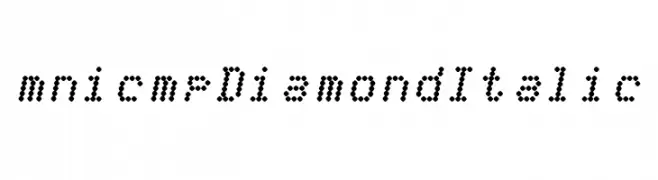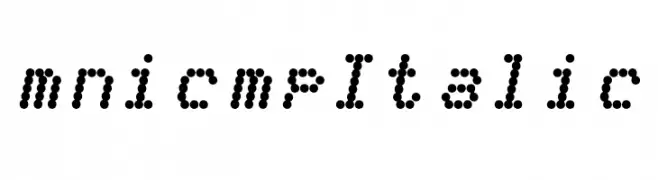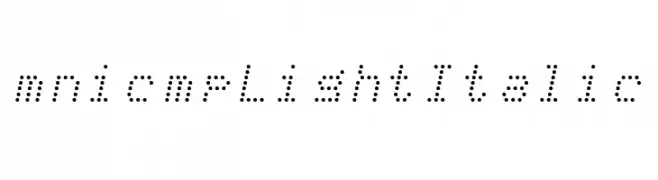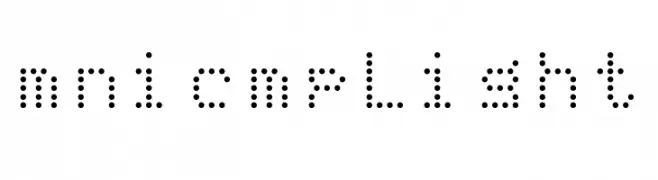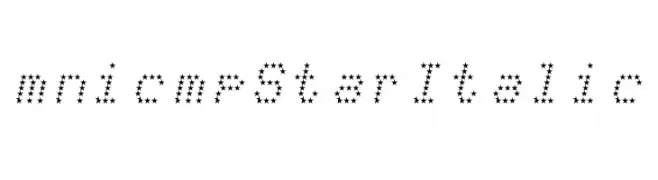
A bold, jagged font with sharp, torn edges for a dynamic look.
A bold, warped, and italicized font with a rugged, dynamic style.
A bold, jagged, and warped font with an edgy, dynamic style.
A modern, rounded typeface with a friendly and approachable design.
A bold, rounded font with a modern and friendly style.
A bold, rounded, and italicized font with a playful and modern style.
A rounded, italic font with a friendly and modern appearance.
A modern, rounded font with clean lines and uniform stroke width.
A modern, rounded, light italic font with a clean and elegant style.
A modern, rounded font with uniform height and geometric shapes.
A rounded, italicized font with a modern and friendly style.
A bold, geometric font with a futuristic and modern aesthetic.
A bold, futuristic font with geometric elements and high contrast.
A playful, handwritten font with a casual and whimsical style.
A playful, casual handwritten font with a natural, organic feel.
A playful, hand-drawn font with bold characters in circular borders.
A clean, modern sans-serif typeface with balanced proportions and consistent stroke width.
A modern, dotted font with a digital and futuristic appearance.
A pixelated, geometric outline font with a retro digital aesthetic.
A pixelated, blocky font with a retro digital style.
An elegant script font with flowing cursive letters and decorative swashes.
A bold, italicized font with a dynamic, wind-swept appearance.
An ornate, decorative font with whimsical swirls and curls.
A playful, casual handwritten font with smooth, flowing curves and medium contrast.
A lively and expressive handwritten font with fluid strokes.
A bold, dynamic handwritten font with brush-like strokes.